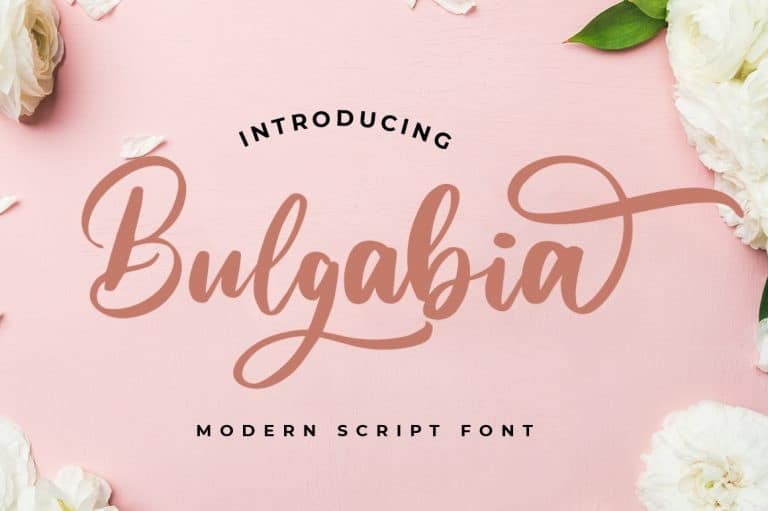
Bulgabia Font
Bulgabia Calligraphy Font is a handwriting font created by hugefonts with a sweet look and flourishing character. It has beautiful and well-balanced characters and as a result, it can be used in so many designs. This font is PUA encoded which means you can access all of the available glyphs and swashes with ease!
This enchanting font will turn any creative idea into a true standout. Perfect fit for all of your logos, branding, social media, etc.
Get creative with its unique playfulness, and use it to brighten up any crafting project!